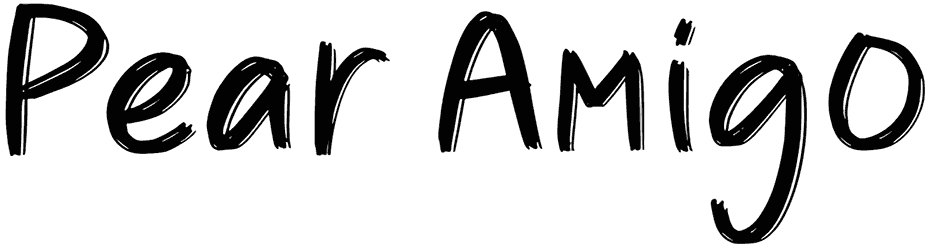
Pear Amigo Font
The combination of calligraphy and painting in Pear Amigo is what makes it a valuable item in your collection. This script font has a sincere style with minimal aesthetics that can satisfy the taste of every strict designer.
Wherever there is a need to convey human emotions, this school font can double your power. So now is the time to take your posters, book covers, and packaging design to the next level with this offer.